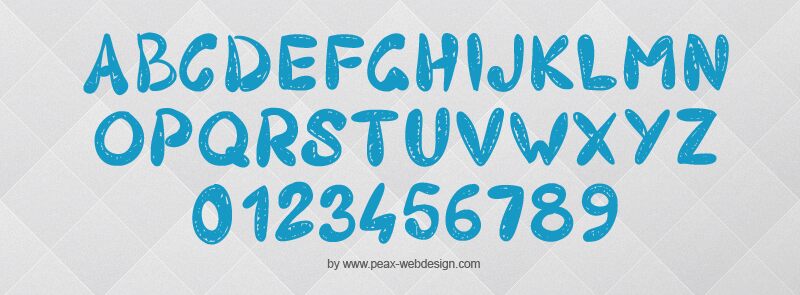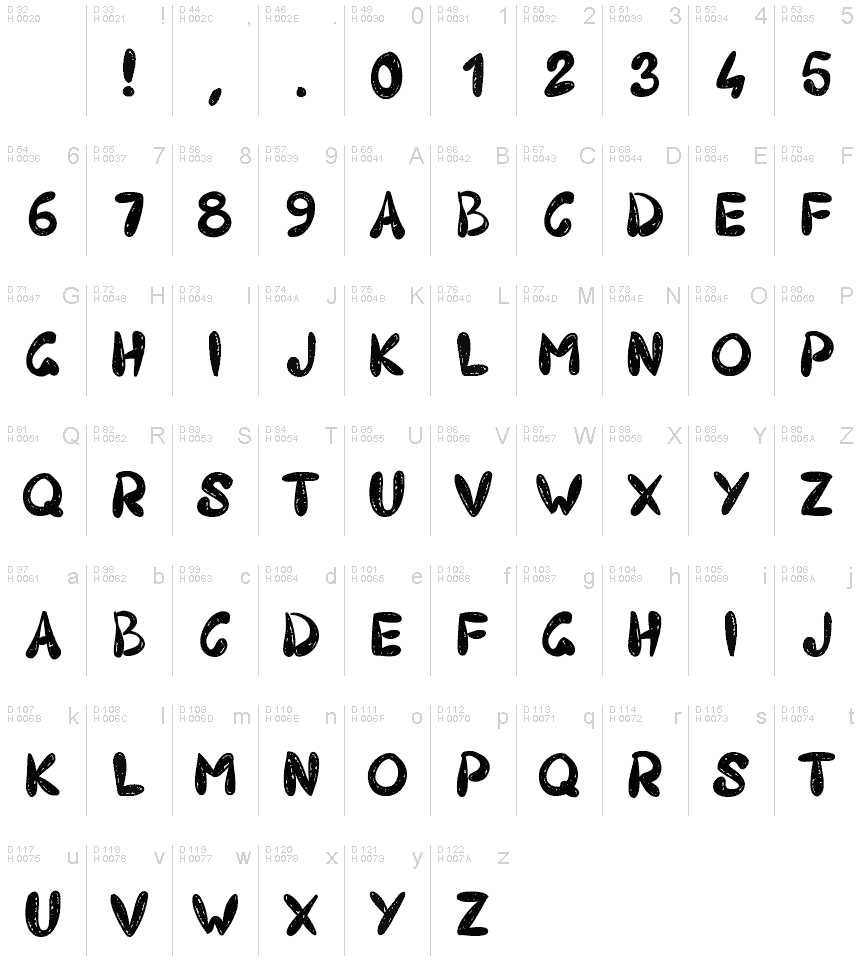
PW403
PW403 is a captivating display font that exudes a playful, cartoon-inspired aesthetic. Its bold, dynamic strokes and whimsical curves instantly capture the eye, lending a touch of vibrant personality to any design.
The font's unique character, with its organic texture and irregular shapes, makes it an excellent choice for headlines, logotypes, and branding applications that aim to convey a sense of fun and energy. PW403's versatile nature allows it to seamlessly integrate into a wide range of design styles, from children's media to modern, edgy publications.
Its bold, attention-grabbing presence makes it a compelling option for designers seeking to create visually striking, memorable compositions.